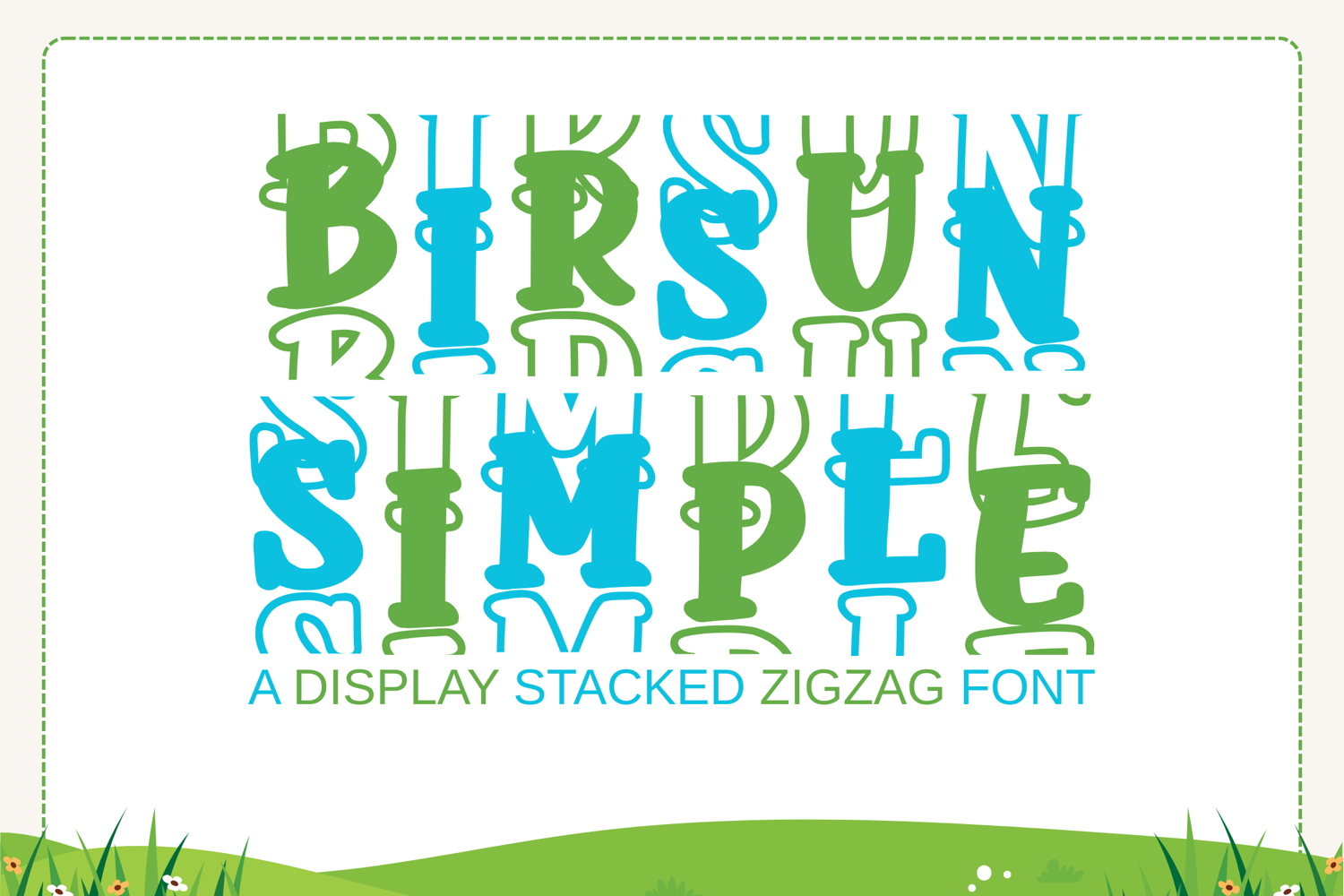
Birdsun Simple Stacked
Birdsun Simple Stacked is a fun, eye-catching display font designed to make your text stand tall with personality! Featuring a bold, uppercase-only style with neat stacking alignment, this font is perfect for modern branding, trendy apparel, and playful product packaging.
Its clean lines and vertical orientation give off a minimalist yet stylish feel—great for those who love simplicity with a bold twist.